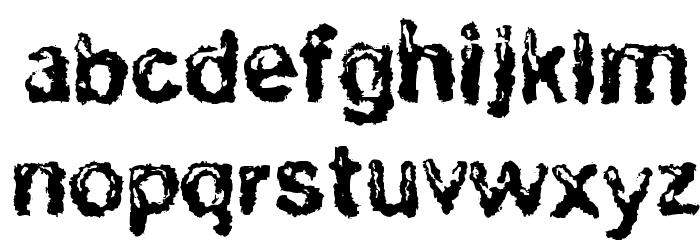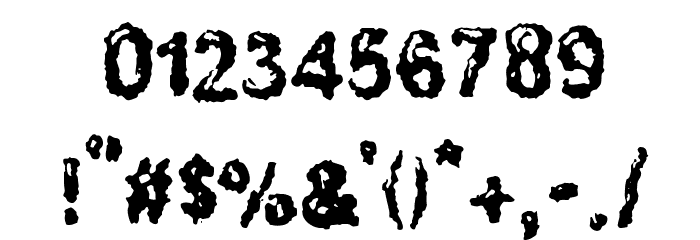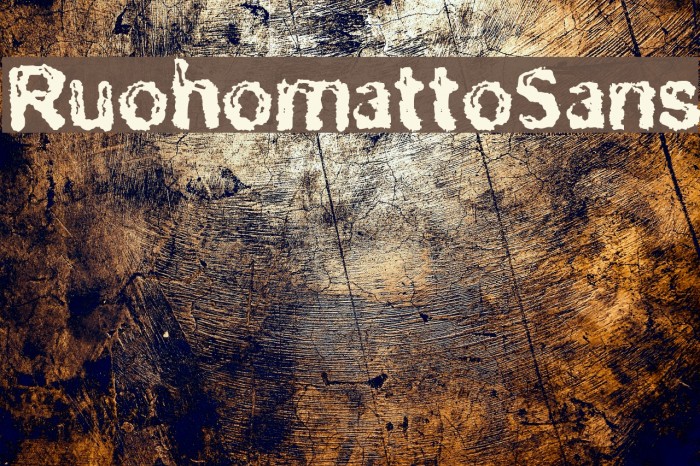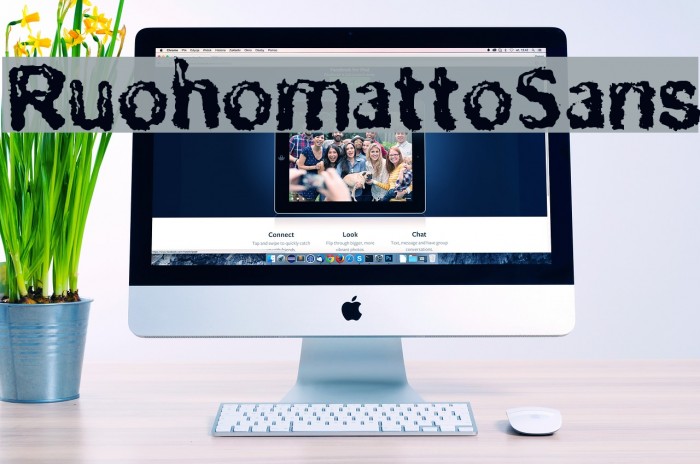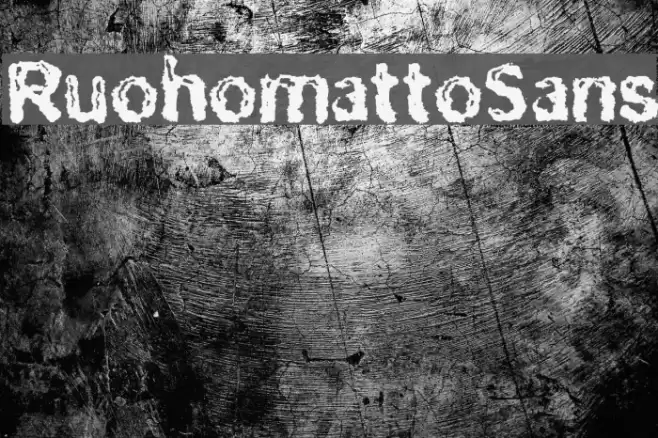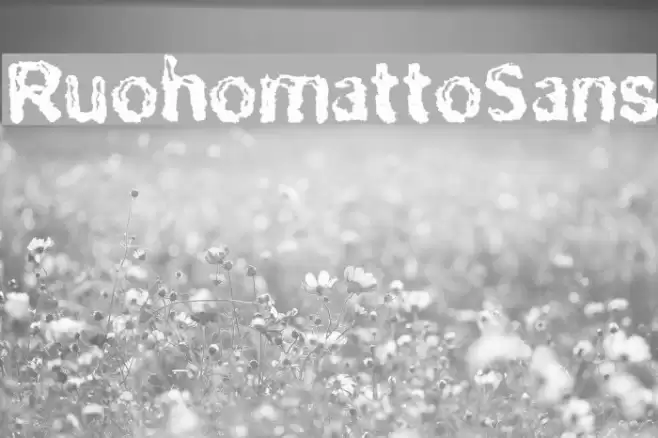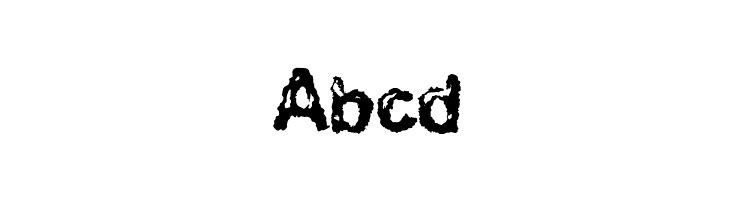
RuohomattoSans Font
This font features a highly textured and distressed appearance, reminiscent of ink splatters or rough brush strokes. The characters are bold and have an organic, hand-crafted feel, with uneven edges and varying stroke thicknesses that give it a dynamic and energetic look. The uppercase and lowercase letters maintain a consistent style, with a playful yet rugged aesthetic. Numbers and special characters follow the same design principles, ensuring a cohesive look across all glyphs. This font is ideal for projects that require a bold statement or an artistic touch.
A bold, textured font with an organic, distressed appearance.
- Proposed Projects: Ideal for posters, album covers, artistic branding, and creative projects that require a bold, unique statement.